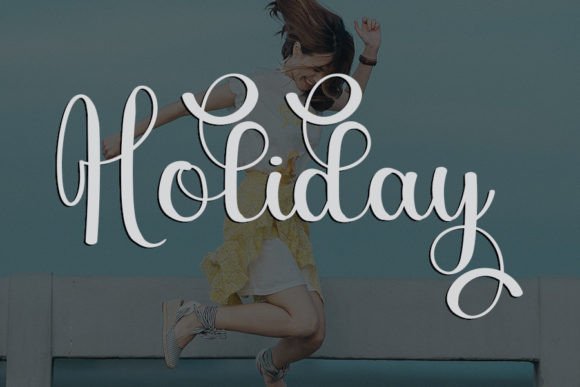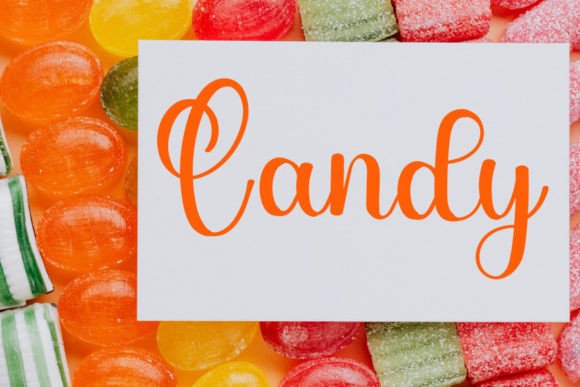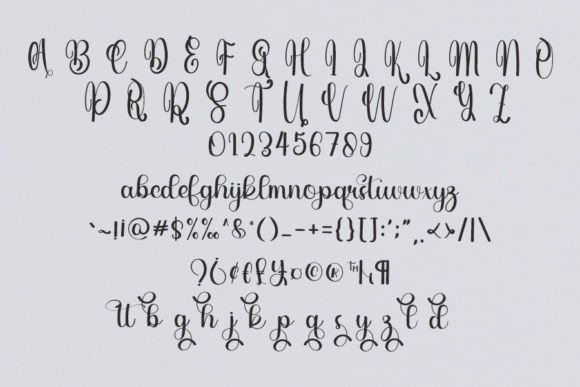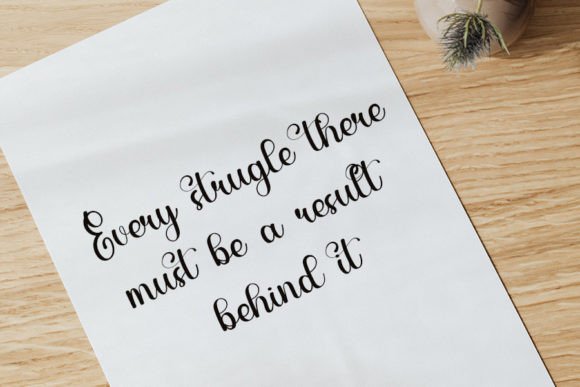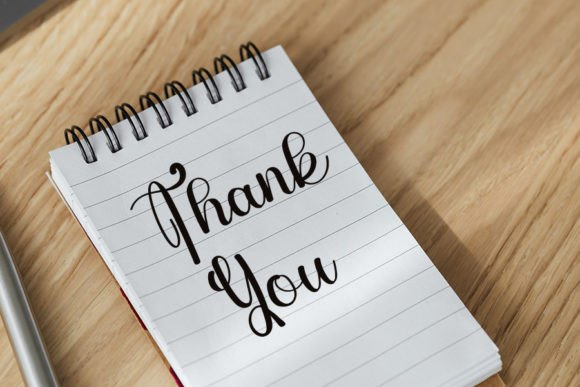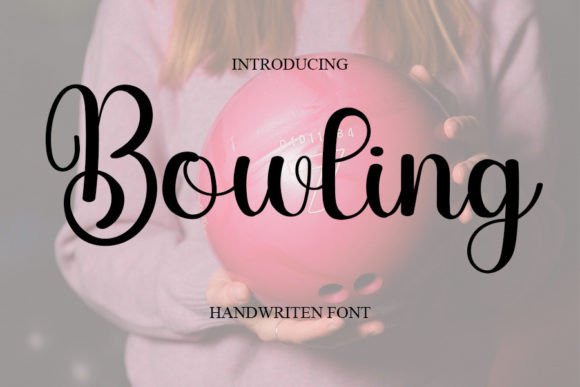
The Ultimate Guide to Bowling Font: A Modern Calligraphy Gem
I’ll never forget the design project that led me to discover the Bowling Font. I was working on a branding project for a trendy new restaurant, and I was struggling to find the perfect font to capture their modern yet elegant vibe. That’s when I stumbled upon Bowling Font, and it instantly became my go-to. In this article, I’ll share my love for this beautiful handwritten font, its features, and how to make the most of it in your designs.
An Honest Review of Bowling Font
• ✨ Balanced and varied: Bowling Font strikes the perfect balance between being not too thin and not too thick, making it versatile for various design projects.
• ✅ Modern vibe: Its modern calligraphy style gives it a fresh and contemporary feel that’s perfect for brands looking to stand out.
• 💯 Spotless form: The font’s clean and elegant form makes it easy to read and visually appealing.
While Bowling Font is an excellent choice, there are a few things to keep in mind:
• 🤔 Limited use in very small sizes: Like many handwritten fonts, Bowling Font may not be the best choice for very small text sizes, as some details may get lost.
• ⚠️ Not ideal for body text: While it’s beautiful, Bowling Font is better suited for headlines, titles, and short paragraphs rather than long-form body text.
The Backstory of Bowling Font
Bowling Font was inspired by the classic calligraphy of the past, with a modern twist. Its designer aimed to create a font that was both elegant and approachable, perfect for a wide range of design projects. The result is a beautiful, versatile font that’s easy to read and visually appealing.
Font Name Bowling Font
Author NYA Letter
Q: Is Bowling Font suitable for body text?
A: While Bowling Font is beautiful, it’s better suited for headlines, titles, and short paragraphs rather than long-form body text.
Q: Does Bowling Font support OpenType features?
A: Yes, Bowling Font supports OpenType features, including glyphs and stylistic alternates, which can enhance your design and add more personality to your text.